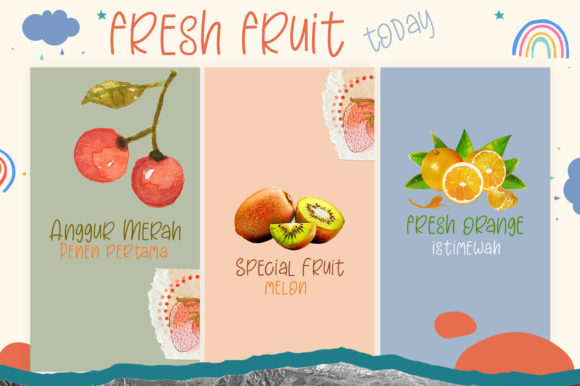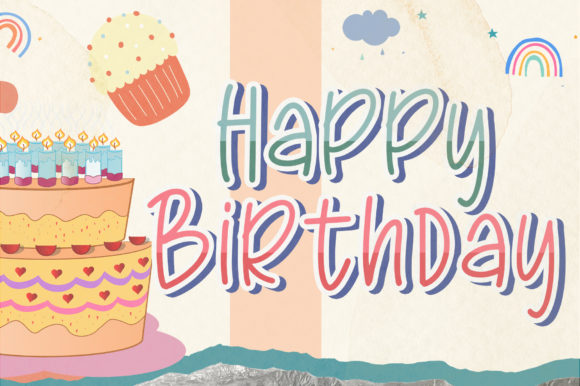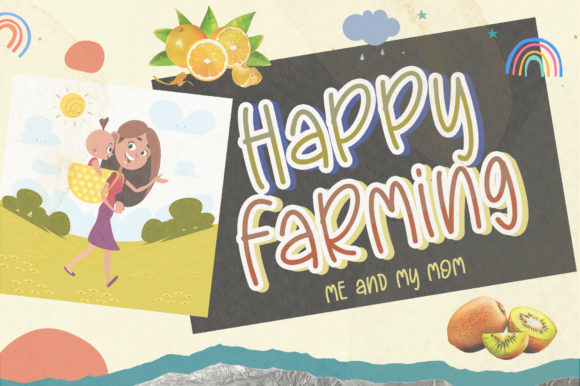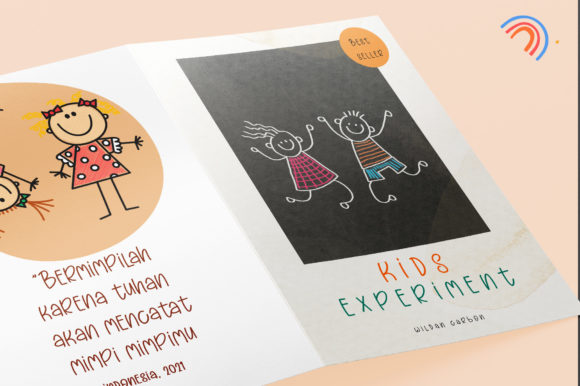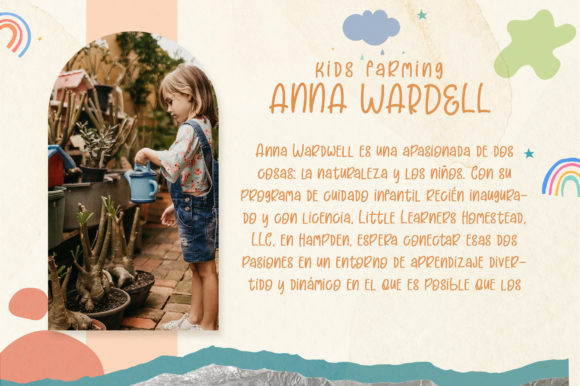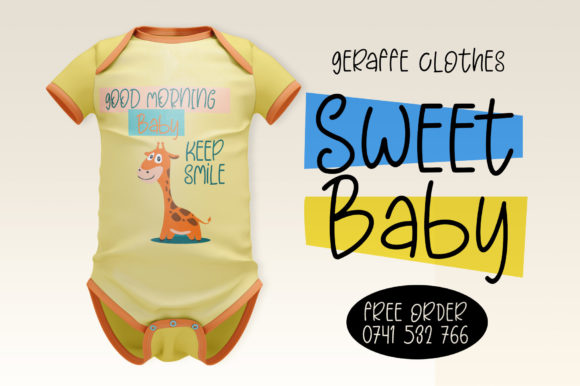
Introduction to Giraffe Dream Font
As designers, we’ve all had that moment when a spark of creativity strikes, and we’re left wondering how to bring it to life. For some, it’s a burst of color, for others, a unique typography. For me, it was the moment I stumbled upon the whimsical Giraffe Dream Font. Its quirky, handwritten style had me instantly hooked, and I knew I had to learn more.
What makes the Giraffe Dream Font so special is its ability to transport your designs into a magical world. With its modern and whimsical style, it’s the perfect design resource for any creative project that needs a touch of personality. Whether you’re working on a high-quality branding project or a free download for a client, this font is sure to make your designs stand out.
Key Features of Giraffe Dream Font
- High-quality, unique design ideal for creative projects and design resources
- Unique characteristics include playful, whimsical feel and distinctive lettering style
- Perfect for use in creative projects, such as branding, advertising, and editorial design
Honest Review: Giraffe Dream Font
As a designer, I’m always on the lookout for high quality, free design resources that can elevate my creative projects. The Giraffe Dream Font is one such find. This free download has quickly become a staple in my design toolkit.
- Unique and playful design: The Giraffe Dream Font’s quirky style adds a touch of whimsy to any project.
- High resolution: The font’s high resolution ensures that it looks great in large formats and on various devices.
- Transparent background: This feature makes it easy to use the font in creative projects that require a transparent background.
- Limited font styles: While the font’s unique design is a plus, it’s only available in a few styles, which may limit its versatility.
- Not suitable for formal projects: The font’s playful style may not be suitable for formal or professional projects.
Overall, the Giraffe Dream Font is a fantastic design resource for creative projects. Its unique design, high resolution, and transparent background make it a valuable addition to any designer’s toolkit. While it may have some limitations, it’s a great choice for designers looking for a fun and quirky font to add some personality to their work.
Tips for Getting the Most Out of Giraffe Dream Font
Experiment with different font sizes, colors, and spacing to create unique and visually appealing designs. Use the font in combination with other design resources, such as images and shapes, to create a cohesive and creative project.
Common Use Cases for Giraffe Dream Font
The Giraffe Dream Font is a versatile design resource that can be used for a variety of creative projects, including posters, flyers, business cards, and social media graphics. Its high-quality and transparent background make it ideal for use in design software like Canva, Adobe Photoshop/Illustrator, and PowerPoint/Word.